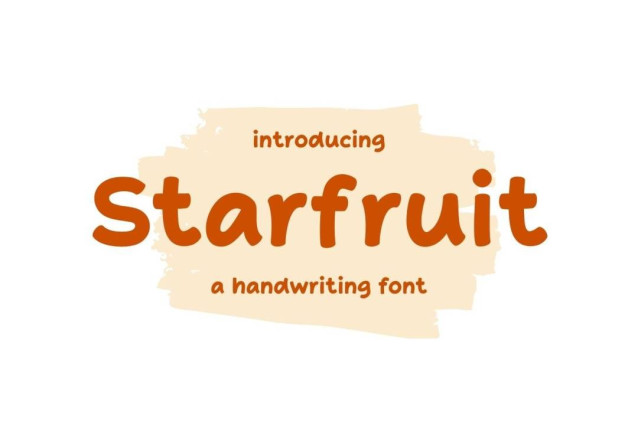
Starfruit Font
Starfruit Font is a simple and friendly handwritten font. Its natural and unique style makes it incredibly fitting to a large pool of designs. The only limit is your imagination!